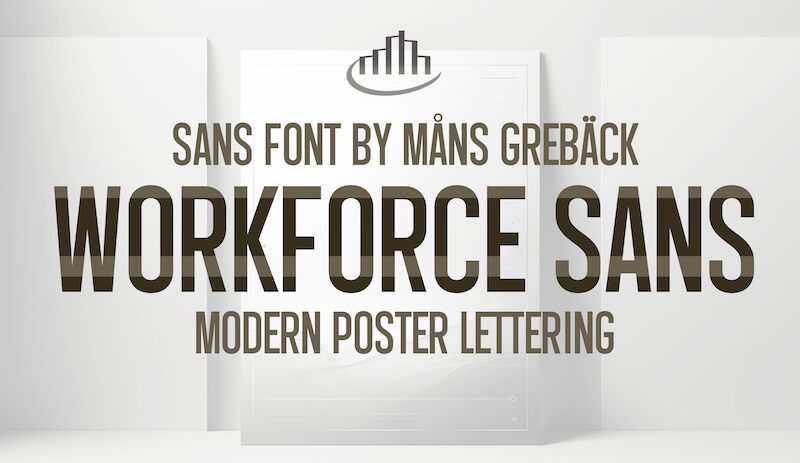
Workforce Sans is a striking sans-serif typeface designed by Mans Greback, characterized by its tall and condensed form. This modern font commands attention, making it ideal for headlines and posters that aim to leave a memorable impact. Its bold presence exudes confidence, while the sleek lines create a sense of contemporary elegance.
Visually appealing, Workforce Sans balances sophistication with approachability, making it versatile across various design contexts-from branding materials to event promotions. Whether in an advertising campaign or a vibrant digital platform, this font's distinctive style ensures that messages resonate powerfully with audiences. Embrace Workforce Sans for designs that demand visibility and flair.